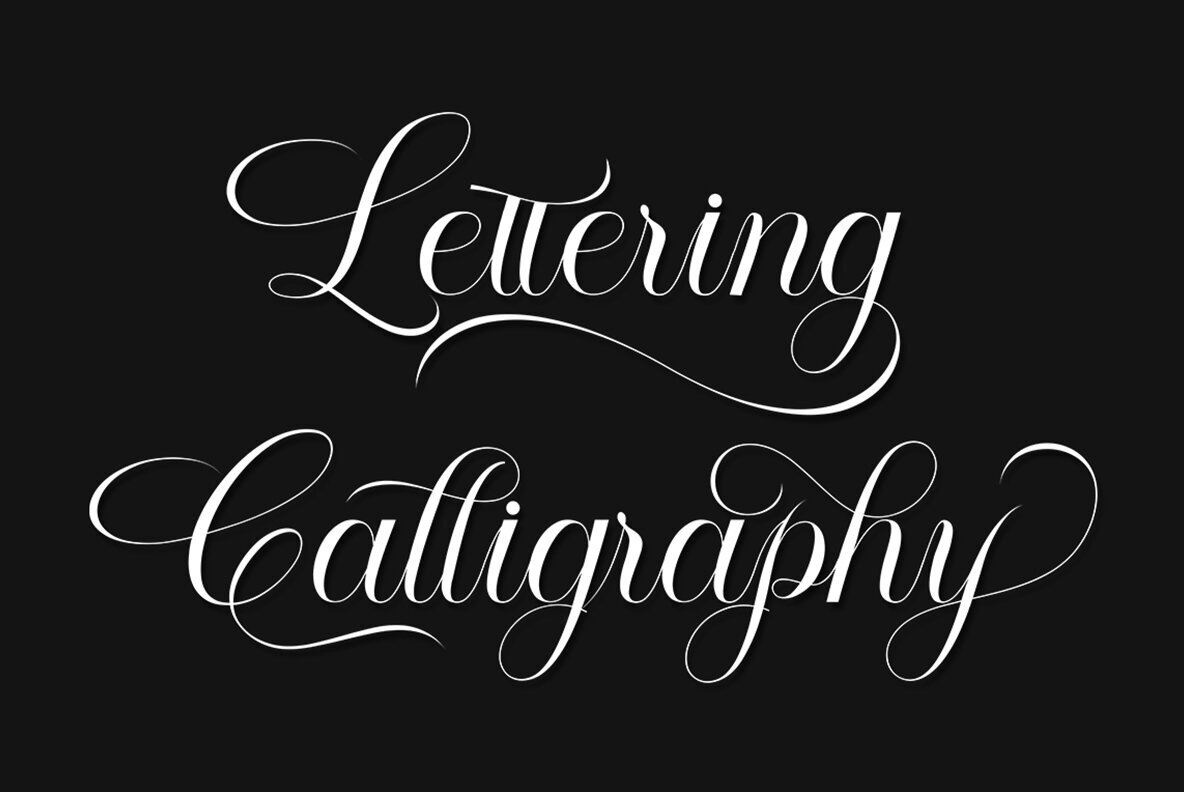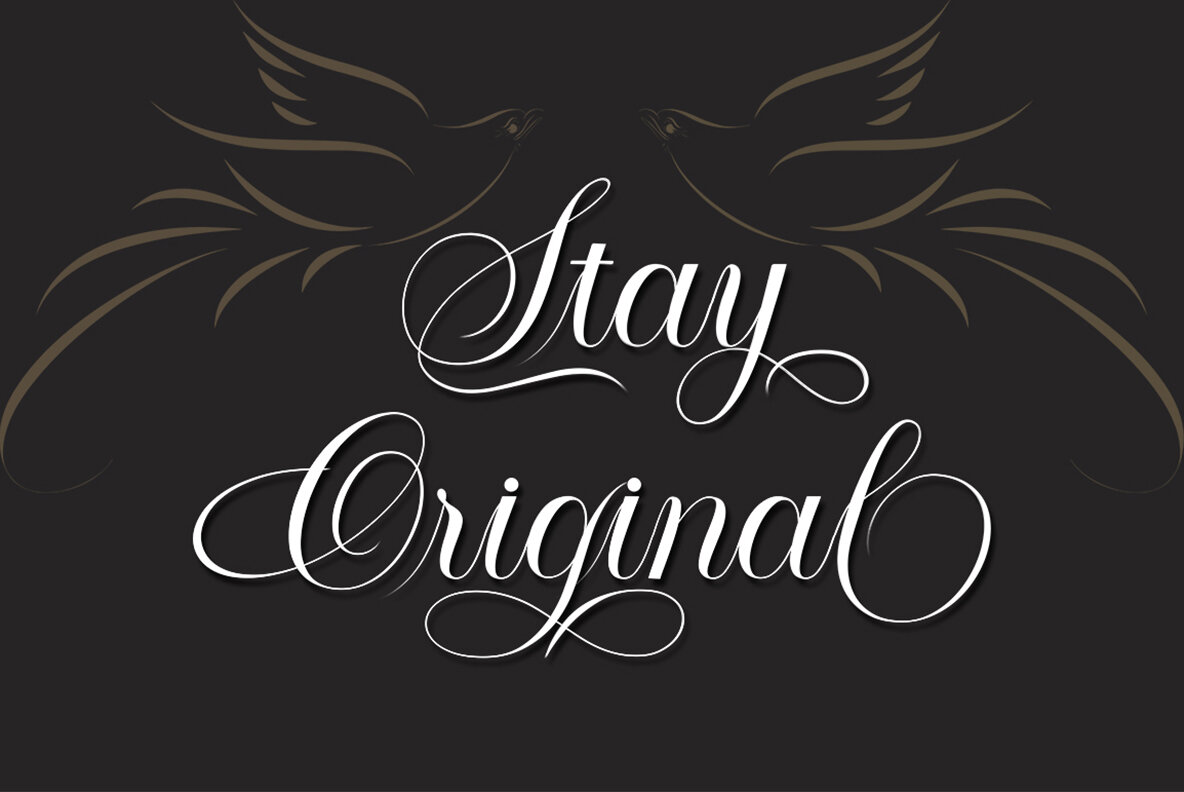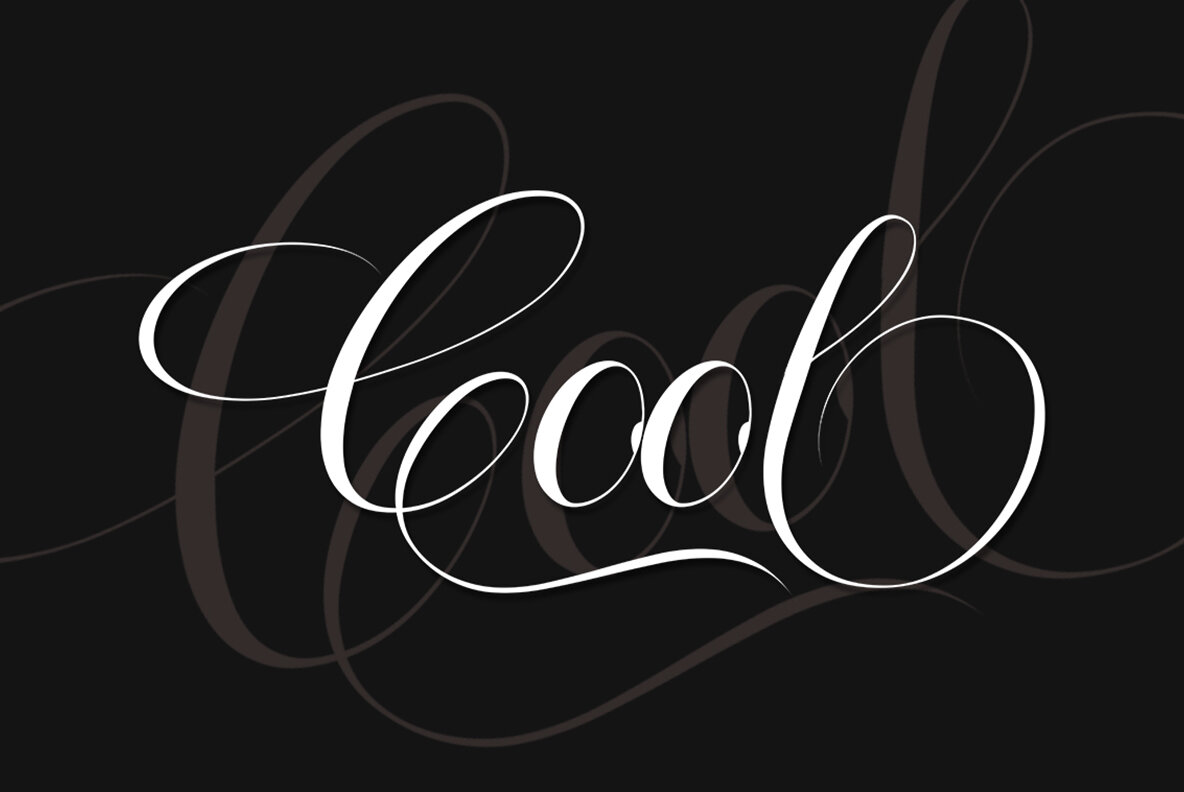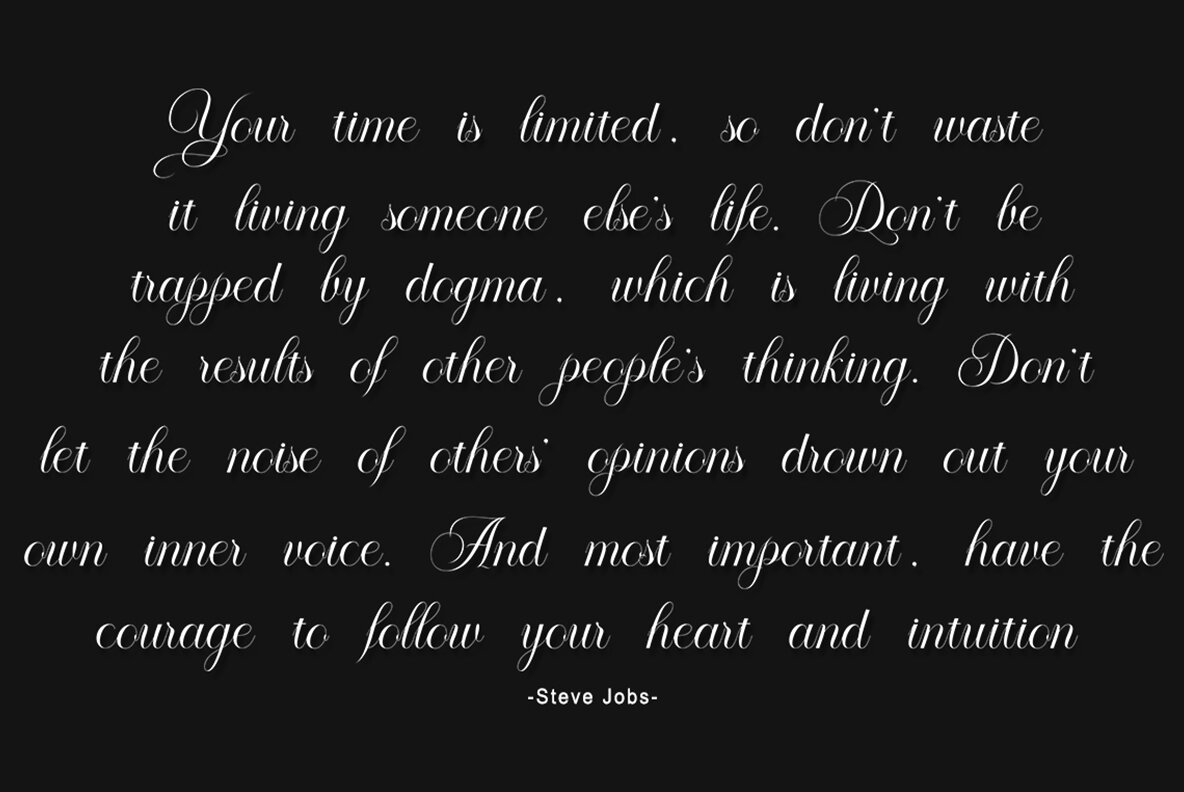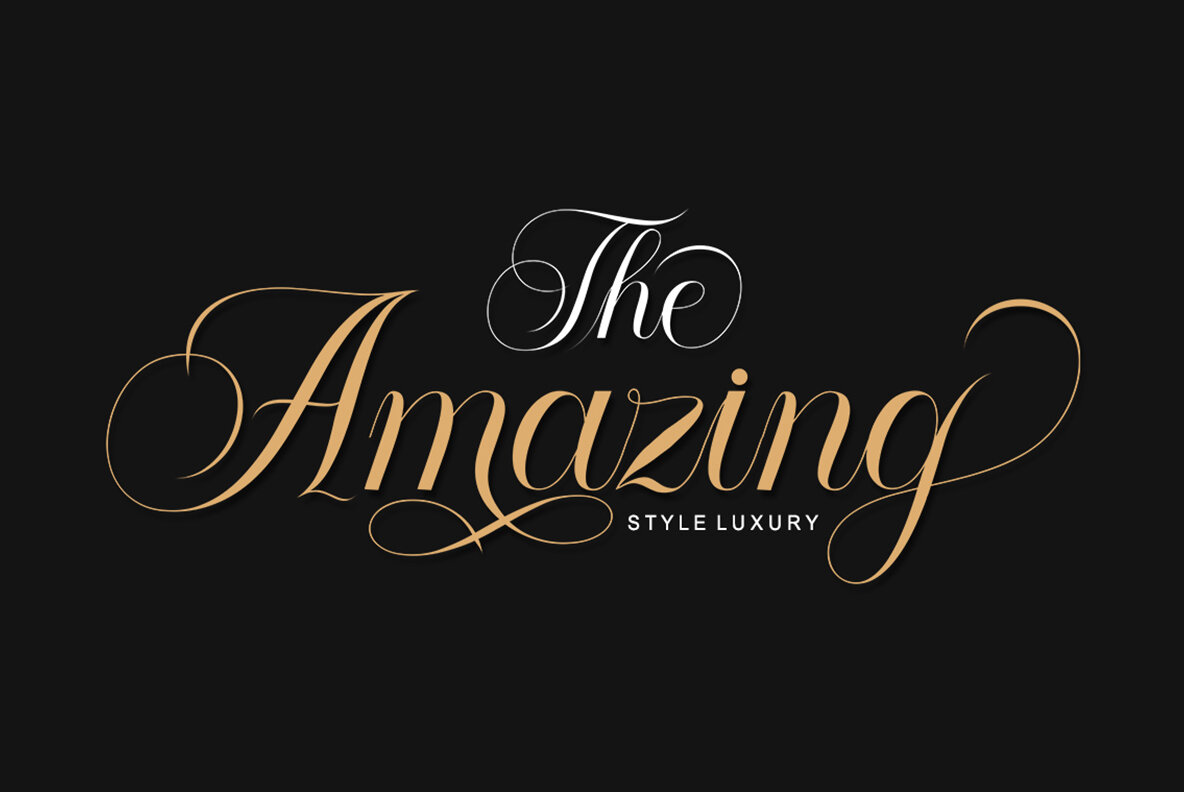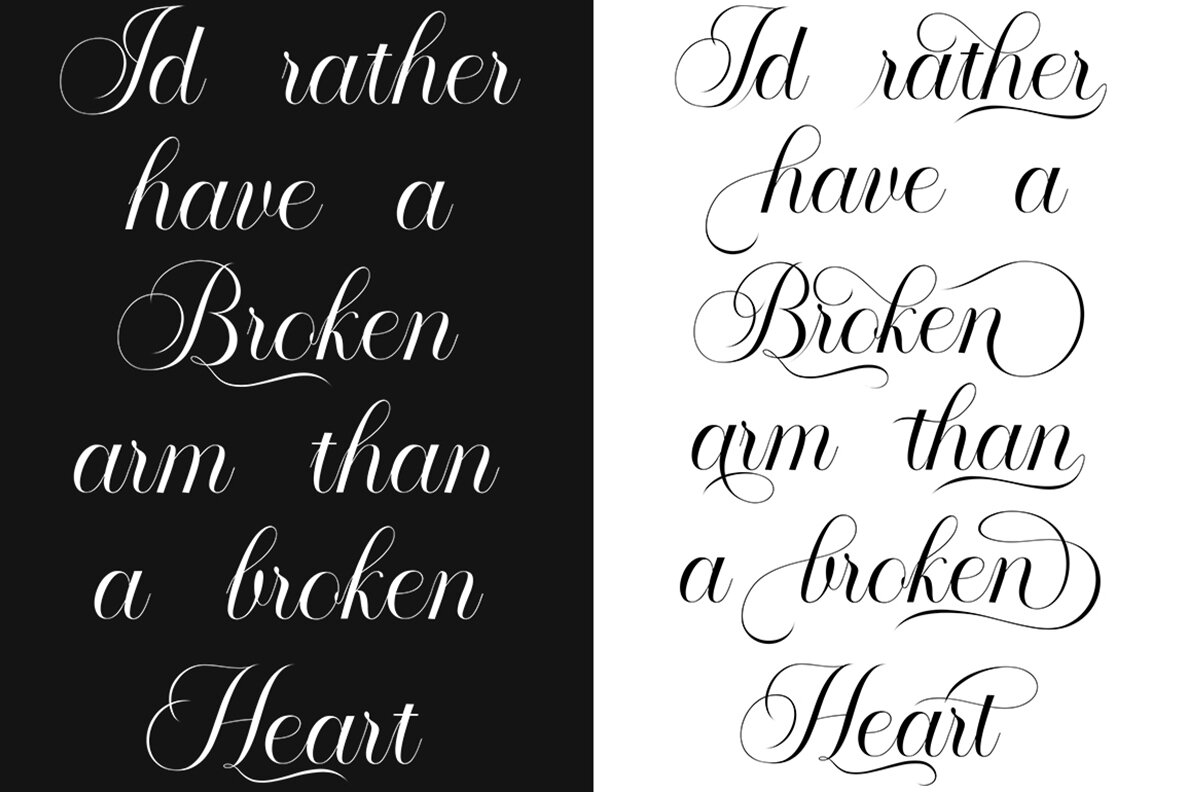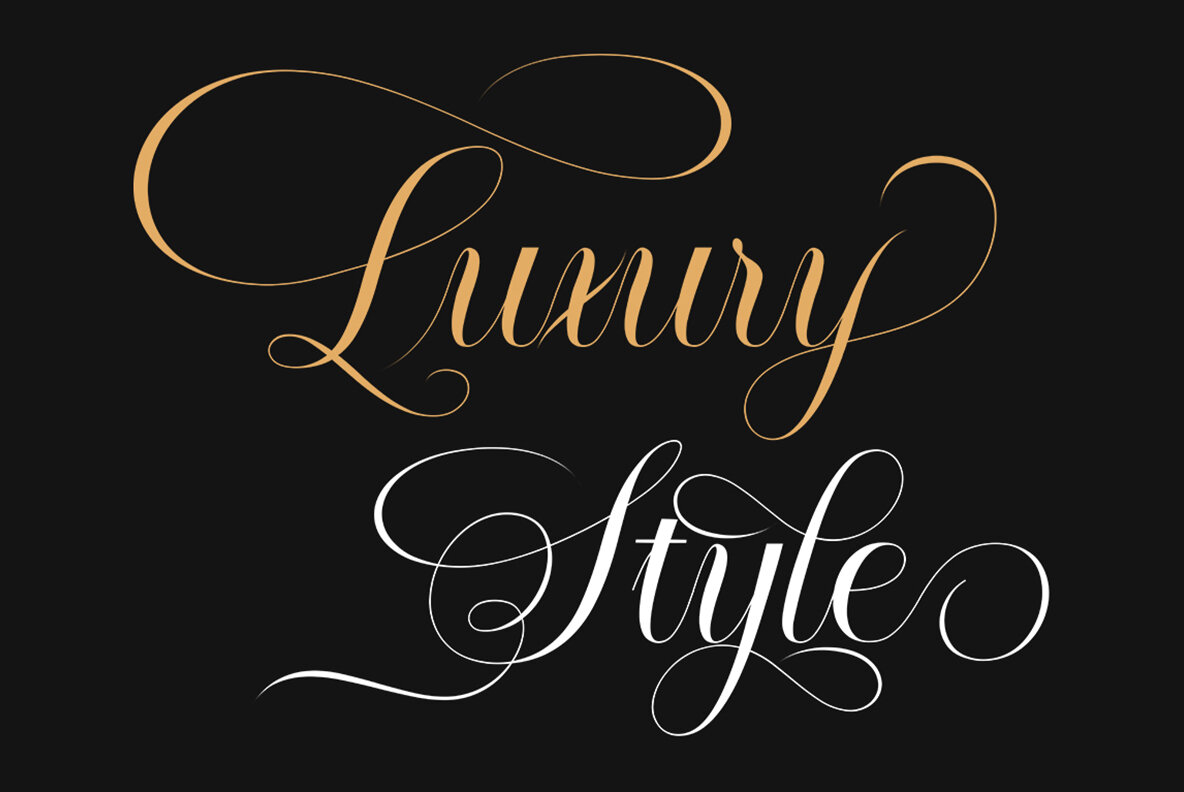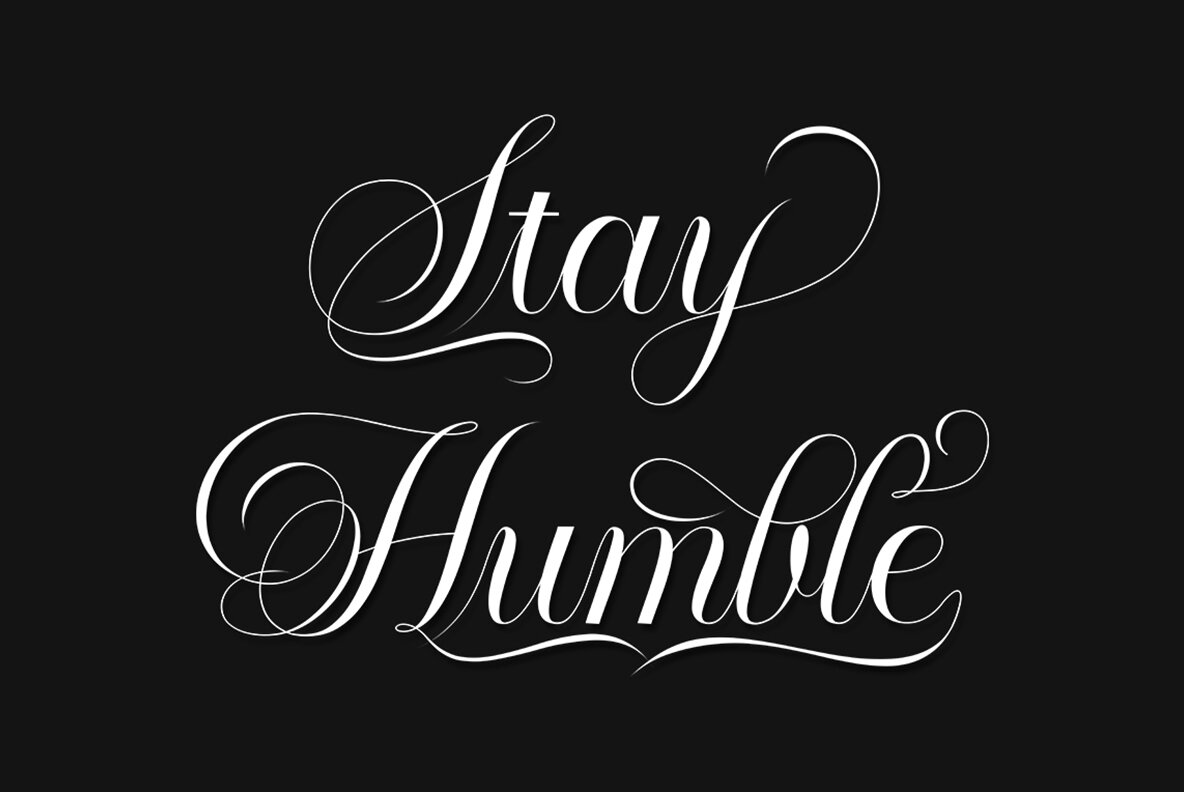
Amour Script Font
Amour Script is a calligraphy script font that combines copperplate calligraphy with a hand-lettering style. Designed to convey a sense of stylish elegance, this typeface offers a smooth, clean, and feminine appearance. Its classic design is ideal for formal applications including invitations, labels, menus, logos, fashion, makeup, stationery, letterpress, romantic novels, magazines, books, greeting cards, wedding cards, and packaging.Amour Script: Elegant Calligraphy with Versatile Styles